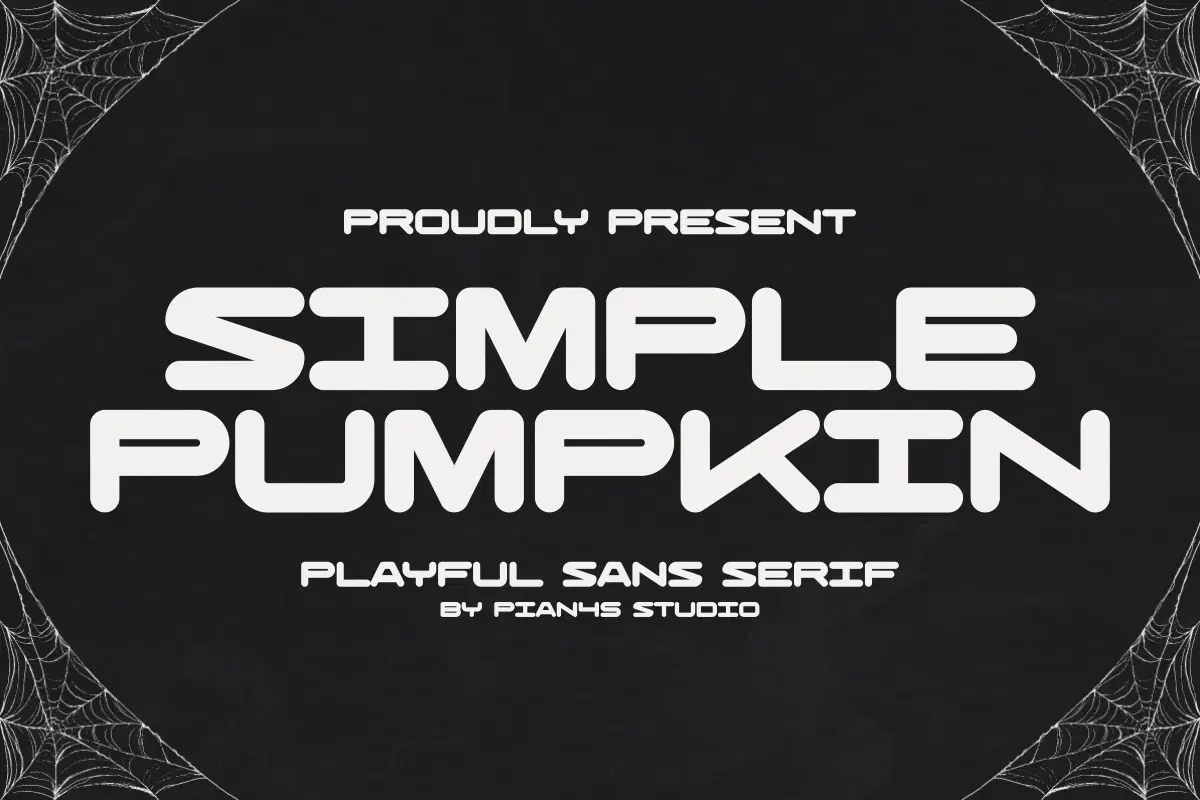
Introducing SIMPLE PUMPKIN, a clean yet Playful Sans Serif font perfect for your Autumn and Halloween campaigns. Its soft, rounded, high-impact design is ideal for creating professional seasonal event branding, engaging social media graphics, and fun merchandise. It’s the versatile asset that keeps your branding relevant and engaging throughout the holidays.